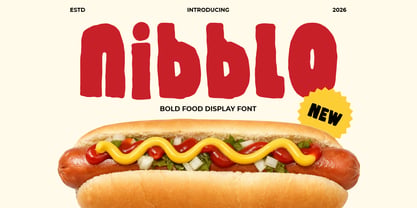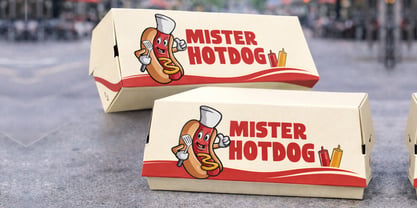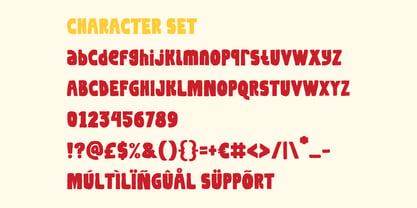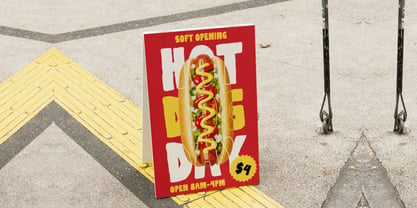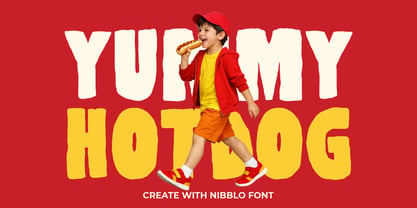
Nibblo
by Shanaf
The Nibblo Font Family was designed by Yesie Erma Yunita and published by Shanaf. Nibblo contains 1 styles. More about this family
Nibblo Doodle Food Font features thick, uneven strokes with a hand-drawn texture. The letterforms appear chunky and slightly irregular, creating strong personality. Stroke weight stays heavy across each character, with minimal contrast. Edges feel organic rather than geometric, giving a casual crafted impression. The proportions look wide and compact, with short ascenders and descenders. This structure keeps words solid and easy to stack in logo layouts. Counters remain open enough to maintain readability at large sizes. The texture suggests a doodle-inspired style with playful energy. The overall look fits bold display typography with a fun, street-food vibe. It leans toward modern casual branding instead of formal design language. Nibblo Doodle Food Font delivers strong impact for businesses that want loud and friendly visuals. This font works perfectly for hotdog stands, fast food stalls, snack brands, and street food businesses. It supports logo design, packaging, posters, and promotional headlines. Short phrases feel powerful and attention-grabbing in storefront signage. The bold structure also fits menus, price boards, and advertising banners. Designers can use it for stickers, greeting cards, invitations, and book covers. It performs well in magazine titles and movie titles that require bold character. The playful shape communicates fun, appetite appeal, and casual comfort. The font suits brands targeting families, kids, and everyday customers. Nibblo Doodle Food Font strengthens brand identity with expressive, chunky lettering that stands out in busy environments.